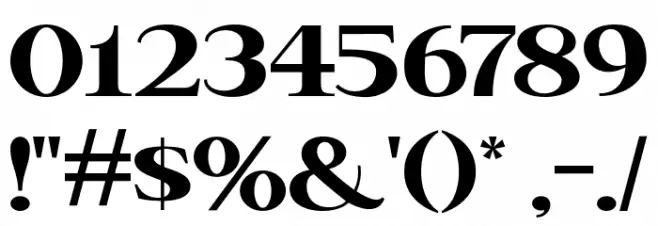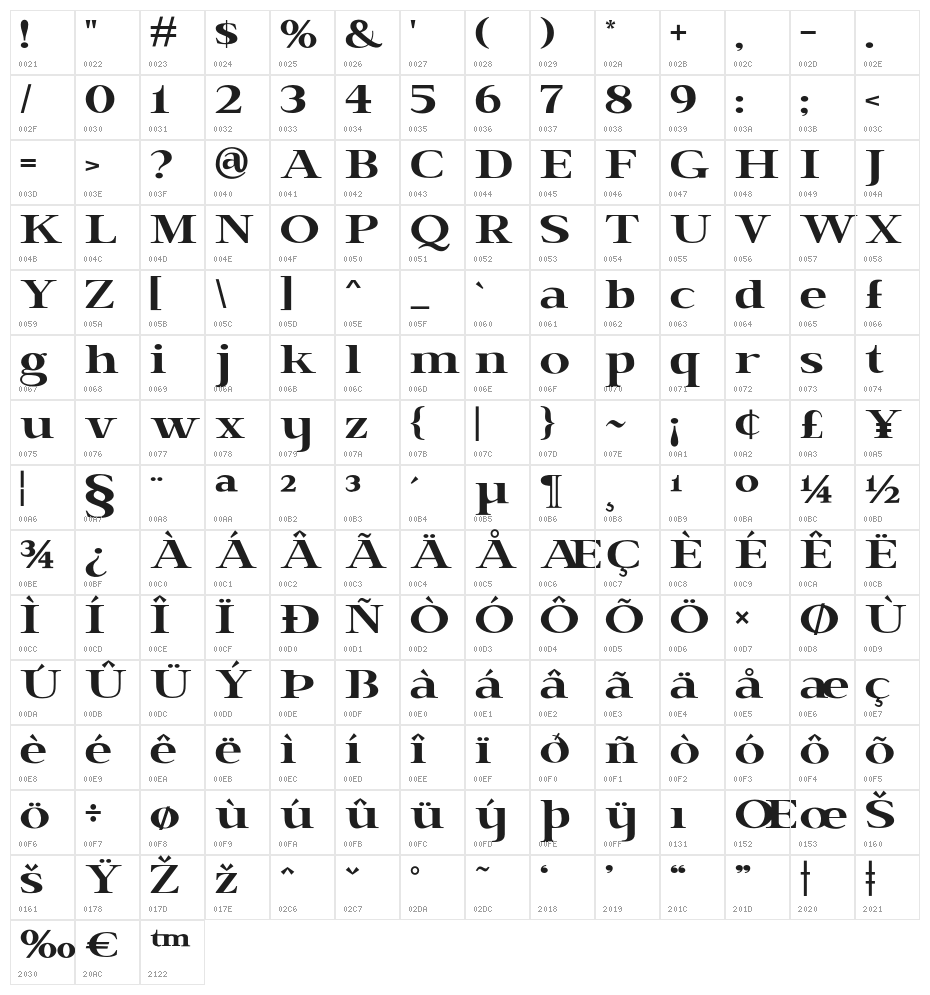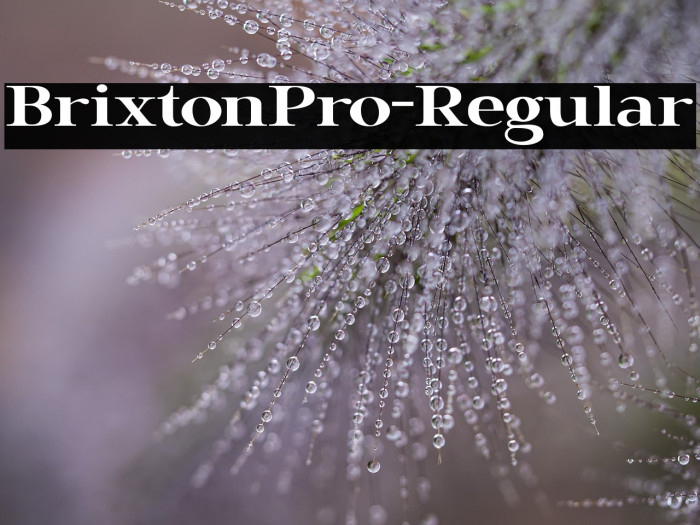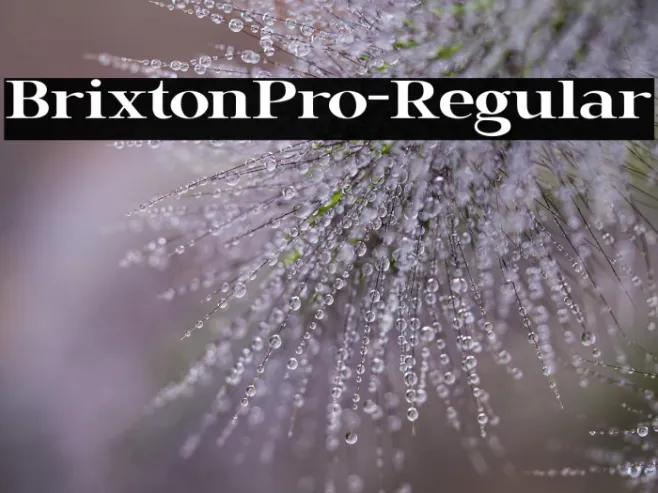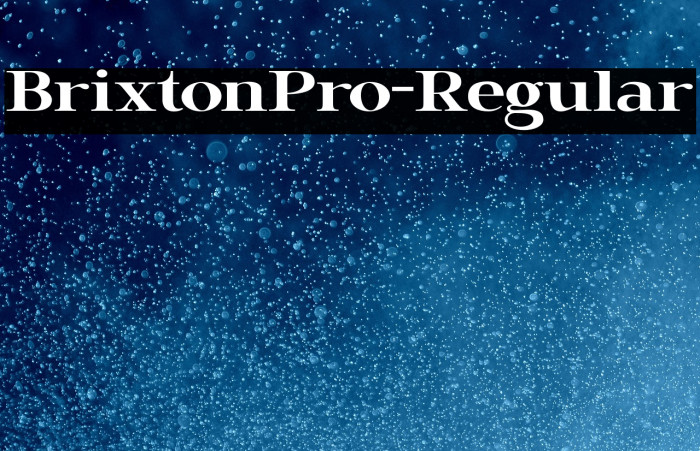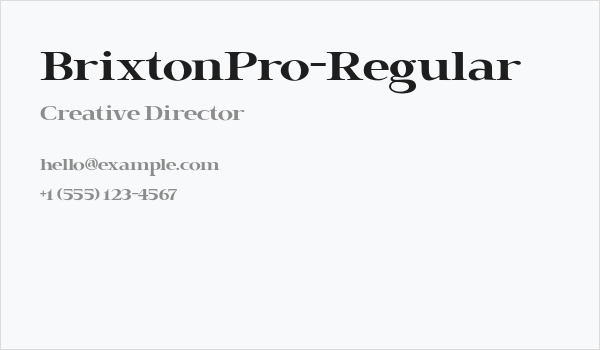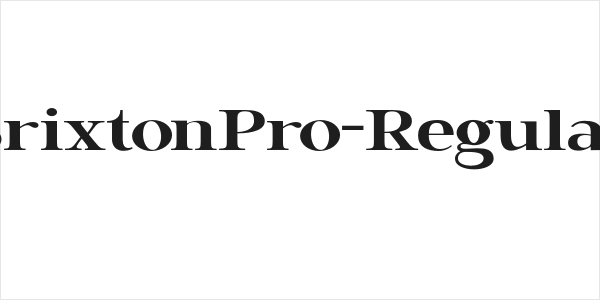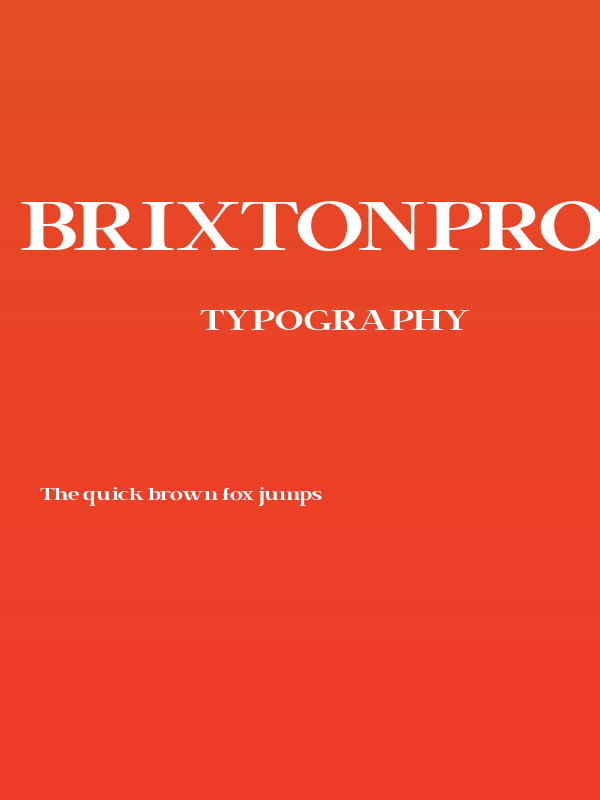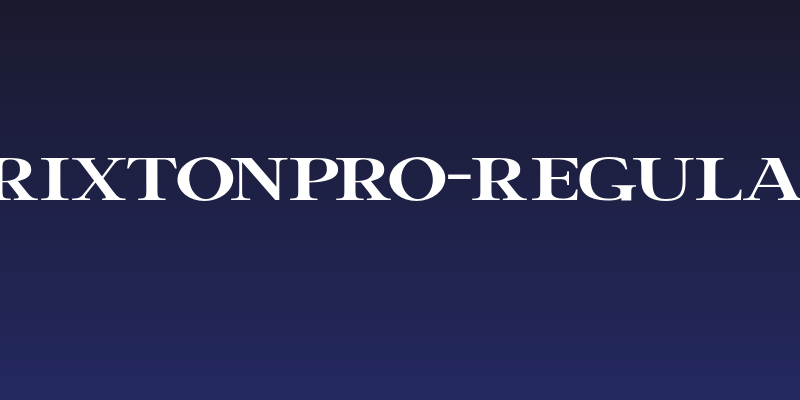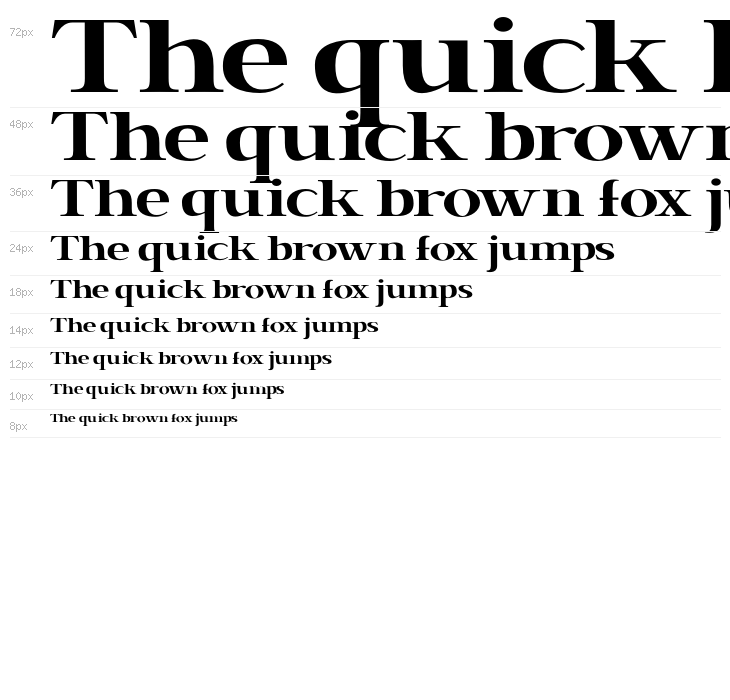
BrixtonPro-Regular Font
BrixtonPro-Regular Description
This font features a bold and elegant serif design, characterized by its strong, thick strokes and high contrast between thick and thin lines. The uppercase letters exhibit a classic and authoritative appearance, while the lowercase letters maintain a harmonious balance with slightly rounded edges. The numerals are robust and clear, making them easily legible. Special characters are designed with the same attention to detail, ensuring consistency across all glyphs. This font exudes a sense of sophistication and tradition, making it suitable for formal and professional applications.
| Use Case | Headlines, Logos, Editorial design |
| Proposed Projects | Ideal for editorial design, book covers, branding, and formal invitations. |